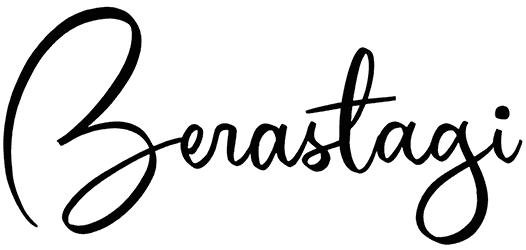
Berastagi Font
Do you want to present your idea with charming classic words? This is going to be done through a smooth handwritten font such as Berastagi. The cursive, detailed face of this invitation font has the potential to make your text more engaging. Apply it for cards, logos, novels, or the like, and amp up your projects.